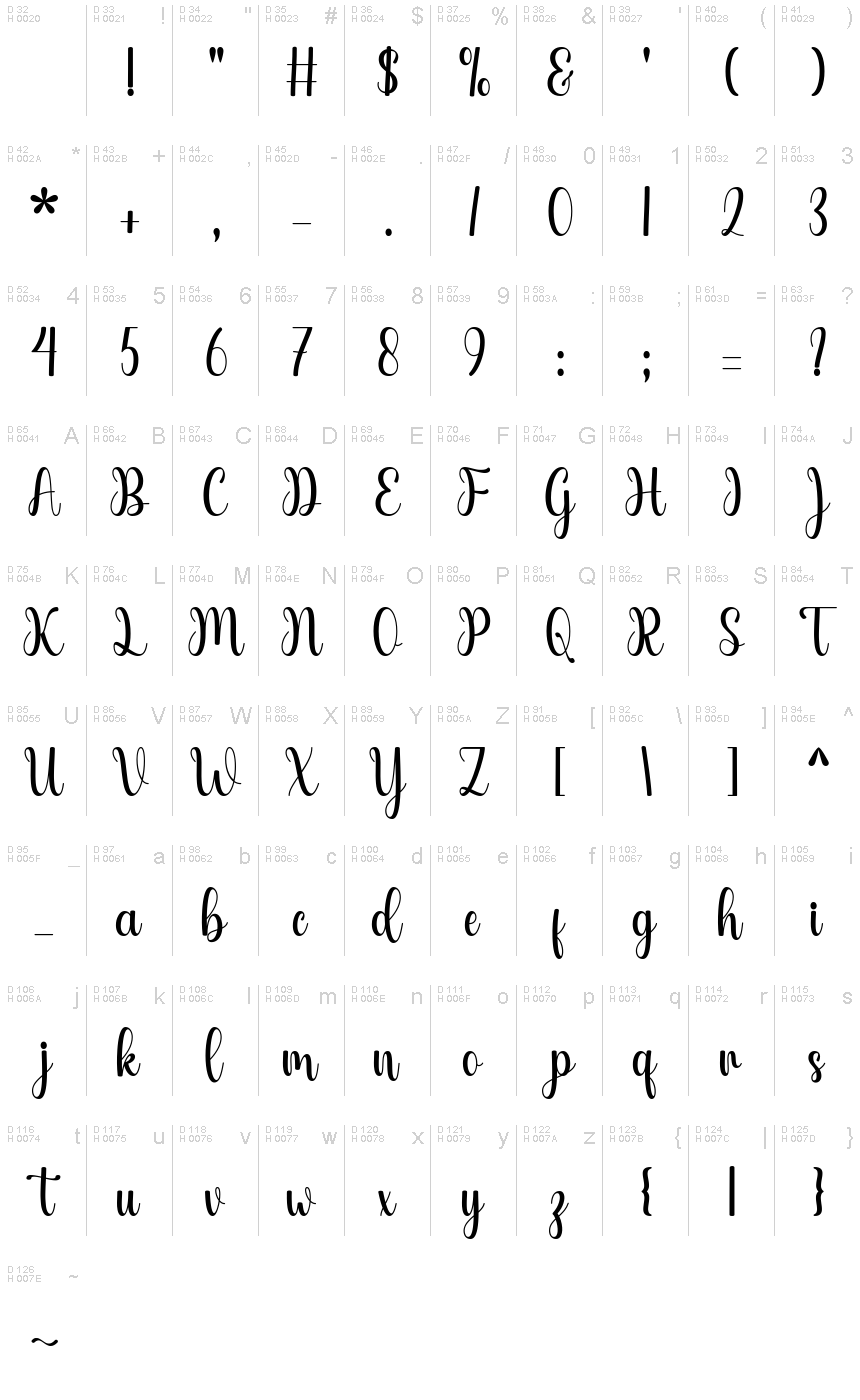
Violine
Violine, crafted by Hardiboy Design, is a font that breathes elegance through its calligraphic strokes. It carries the timeless grace of handwritten script with a contemporary twist, making it an exquisite choice for those seeking to add a touch of sophistication to their designs. The sweeping curves and dynamic flow of Violine evoke the artistry of traditional calligraphy while maintaining readability.
This font’s charm lies in its versatile appeal—it can elevate wedding invitations, branding materials, and elegant packaging with its poetic presence. Its fluidity makes it particularly well-suited for fashion labels and literary publications that aim to create an intimate connection with their audience. With Violine, designers can infuse their work with the allure of bespoke craftsmanship tailored for modern sensibilities.